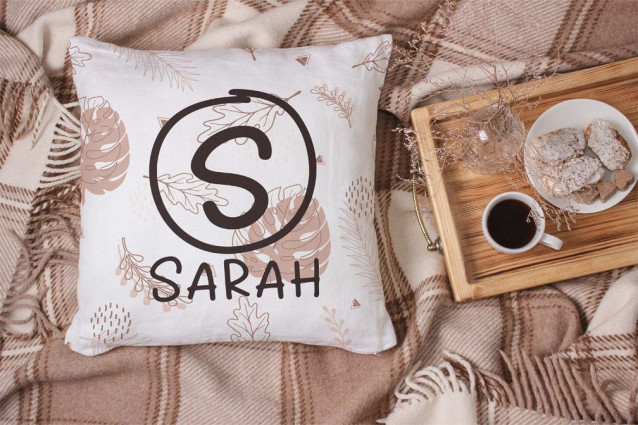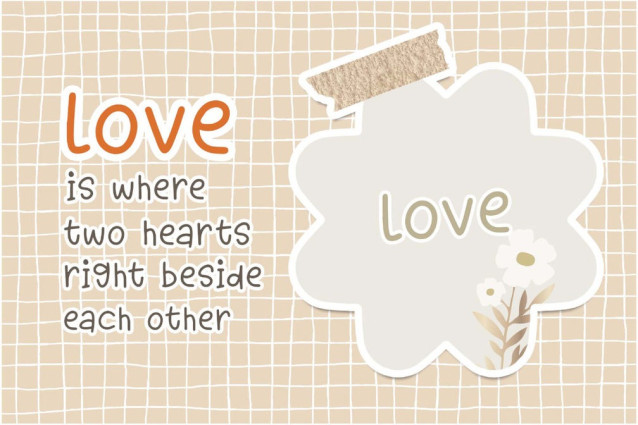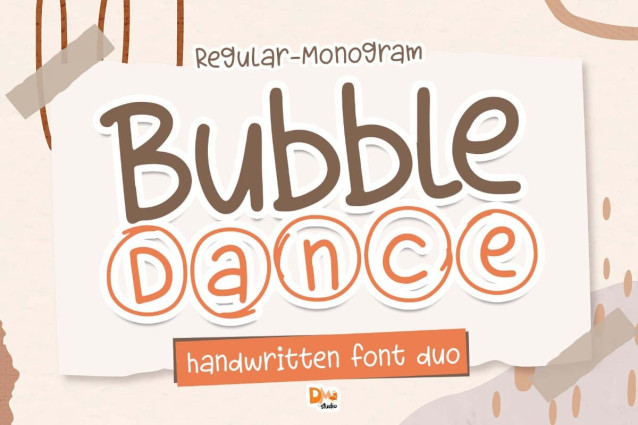
Bubble Dance Monogram Font
Bubble Dance Monogram Font – This versatile duo offers a perfect blend of elegance and playfulness, allowing you to create stunning monograms effortlessly. Download now and add a personalized touch to your projects.
Bubble Dance Font Duo Monogram is a stylish and versatile typeface set designed to add a touch of elegance and sophistication to your designs. Featuring a combination of script and sans-serif fonts, this duo offers endless possibilities for creating stunning monograms, logos, branding materials, and more. Elevate your designs with the graceful and dynamic aesthetic of the Bubble Dance Font Duo Monogram.